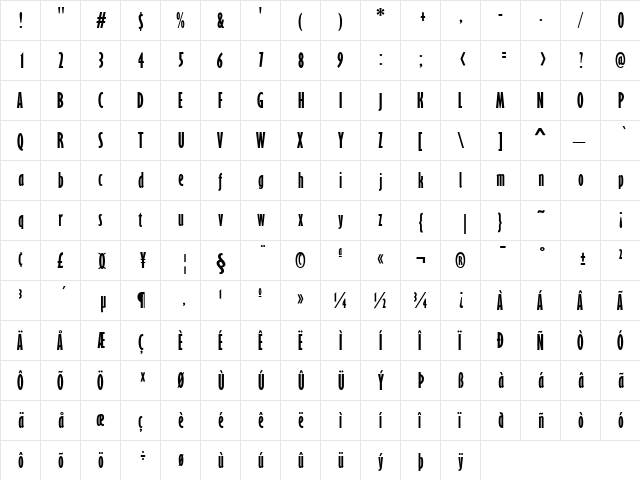
Garrison ExtraCond. Sans Regular
Design Context for Garrison ExtraCond. Sans Typeface
Garrison ExtraCond. Sans is a composed and adaptable typeface that performs quietly and consistently across a wide range of design contexts. The condensed width makes it efficient for tight spaces without sacrificing legibility.
Pro Tip: Pair Garrison ExtraCond. Sans with a font of contrasting weight or personality to build a more expressive typographic hierarchy.